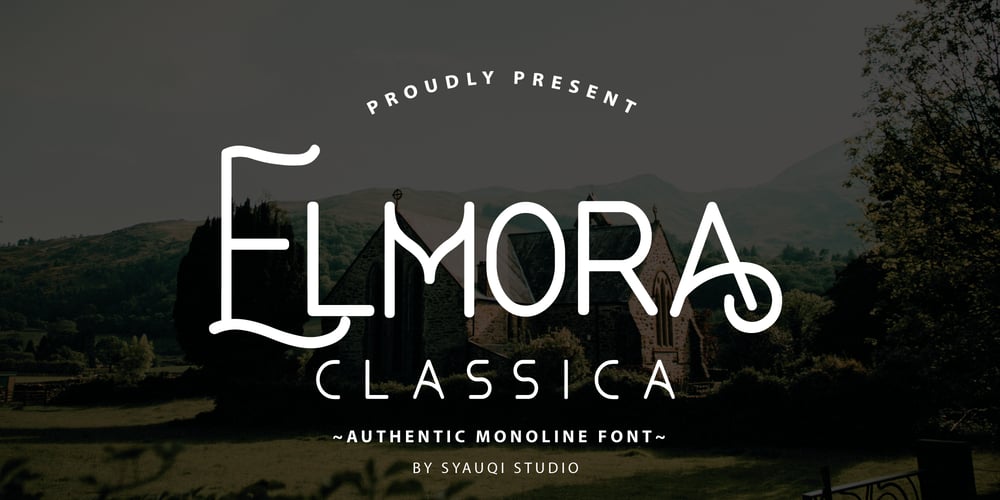
Elmora Classica
Elmora Classica font
Elmora Classica Font Family was designed by Muhammad Asroful Umam and published by Syauqi Studio. Elmora Classica contains 1 styles and family package options. Introducing, this is our newest product, we call it Elmora Classica.Elmora Classica is an elegant and incredibly authentic monoline font. It has a vintage touch and an incredibly unique feel, so add it confidently and you will love the results.Elmora Classica is very good to be used in:vintage theme, architecture, photography, fashion, bakery, watermark, social media posts, advertisements, logos & branding, invitations, product designs, labels, stationery, visiting cards, wedding designs, product packaging, special events or anything that needs handwriting taste.Features:- Uppercase & Lowercase- Number & Punctuation- Alternates & Swash- Multilingual SupportTo fully access the font’s features, we recommend using programs that support OpenType features. This will allow you to access glyphs directly on the same panel without copy/pasting each glyph. Additionally, the OpenType panel allows you to turn on standard ligatures, which can automatically change letters for available ligatures.Thank you, Best regardsSyauqi Studio